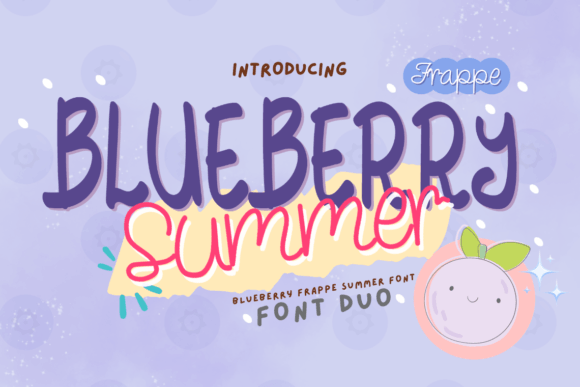
Beat the Heat with Blueberry Frappe Summer Font
Ah, summer is here! The sun is shining, the days are long, and our designs need a refreshing twist. I still remember the time I was working on a summer-themed party invitation project, and I just couldn’t find the right font to capture the fun and playful vibe. My client wanted something that would make their guests feel like they’re sipping a cool drink on a hot summer day. That’s when I stumbled upon the “Blueberry Frappe Summer” Font Duo, and it was love at first sight!
The Perfect Blend of Style and Versatility
The “Blueberry Frappe Summer” Font Duo is a match made in heaven for designers, crafters, and creative hobbyists looking to add a splash of fun to their projects. This font pack embodies the cool vibes of summer with its vibrant blue hues and playful typography. Whether you’re designing party invitations, social media graphics, or any other creative project, this duo is sure to elevate your work to new heights.
• ✨ Unique blend of elegance and whimsy, perfect for summer-themed designs
• ✅ Vibrant blue hues that evoke the feeling of a cool summer drink
• ✅ Playful typography that’s sure to grab attention
• ✅ Easy to read and versatile for various design projects
While the “Blueberry Frappe Summer” Font Duo is amazing, there are a few things to keep in mind:
• ⚠️ Limited character set, so make sure to check the font includes the characters you need
• 🤔 Not suitable for body text, as it’s best used for headlines and titles
The Designer Inspiration Behind Blueberry Frappe Summer Font
The “Blueberry Frappe Summer” Font Duo was inspired by the carefree spirit of summer. The designer wanted to create a font that would evoke the feeling of sipping a cool drink on a hot summer day. With its vibrant blue hues and playful typography, this font duo is sure to bring a smile to your face and a touch of summer fun to your designs.
Q: Is the Blueberry Frappe Summer Font Duo suitable for body text?
A: No, the font duo is best used for headlines and titles, as it’s not suitable for long blocks of body text.